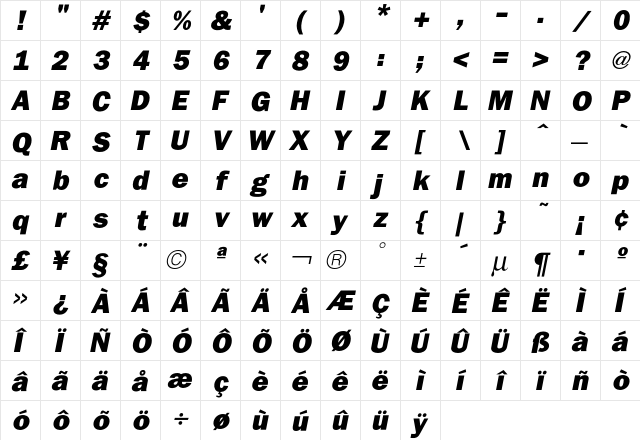
Franklin HeavyItalic Font Preview
Franklin HeavyItalic
Franklin HeavyItalic Font Details
Design Context for Franklin Typeface
Franklin takes a measured approach to typography — its balanced proportions and neutral character make it a reliable workhorse for both digital and print work. The slanted form adds forward momentum and visual energy.
Pro Tip: Use Franklin for emphasis, pull quotes, and subheadings where its slanted energy can add rhythm to the layout.